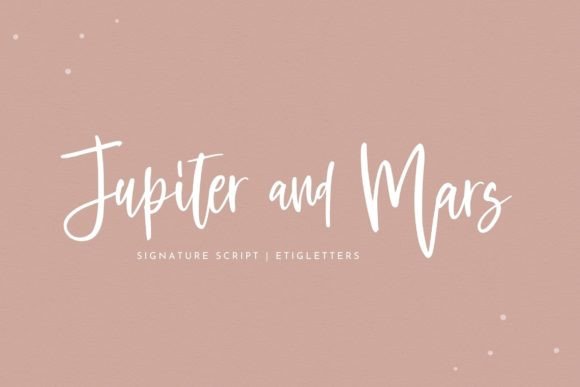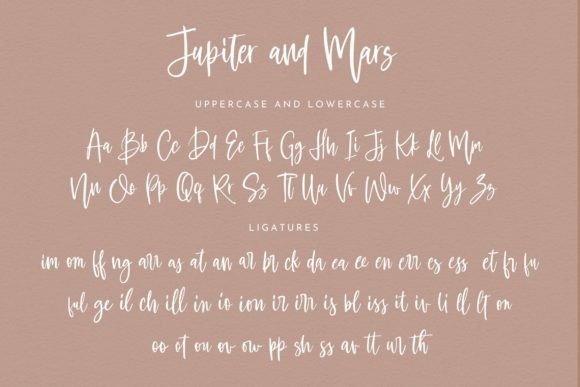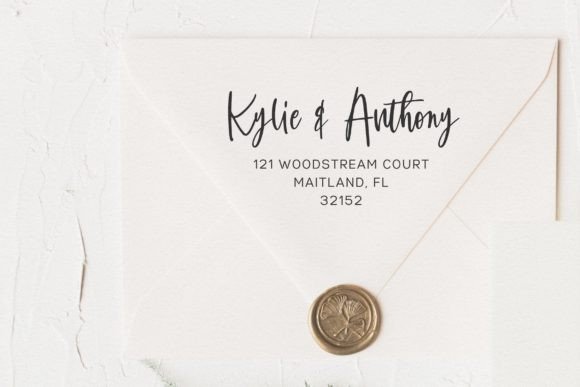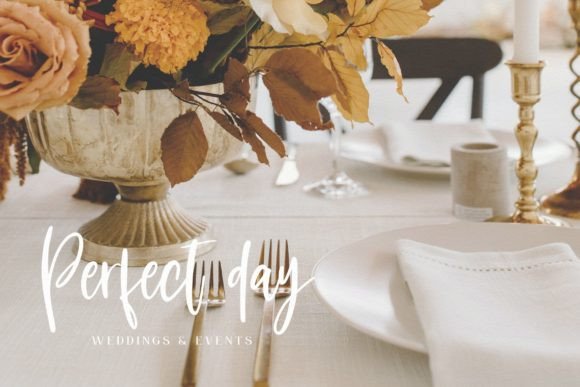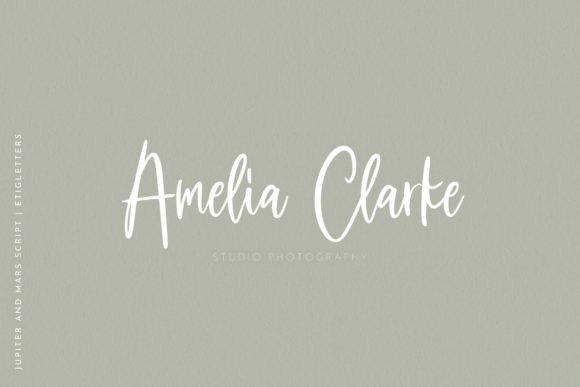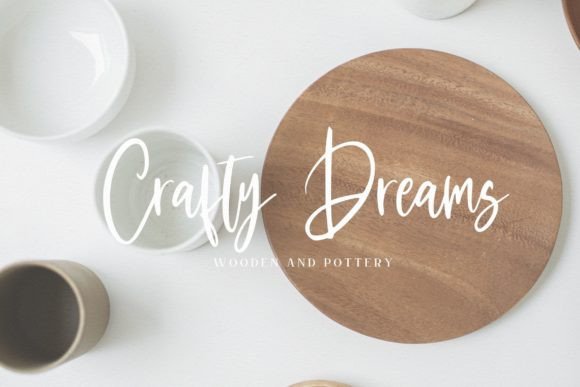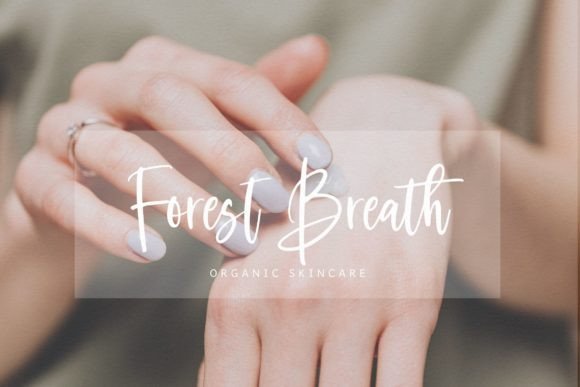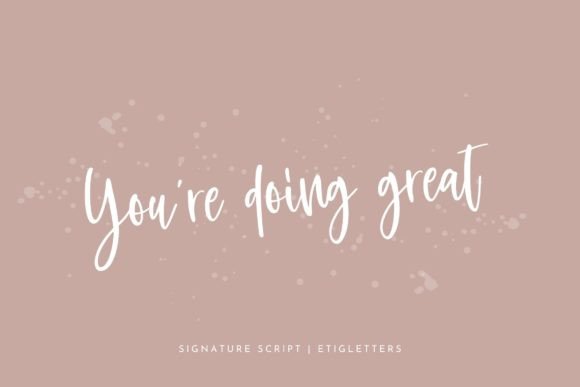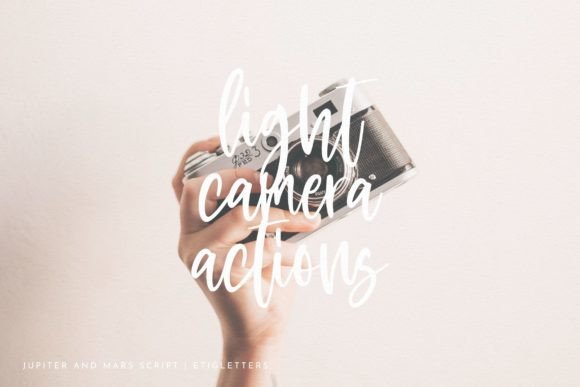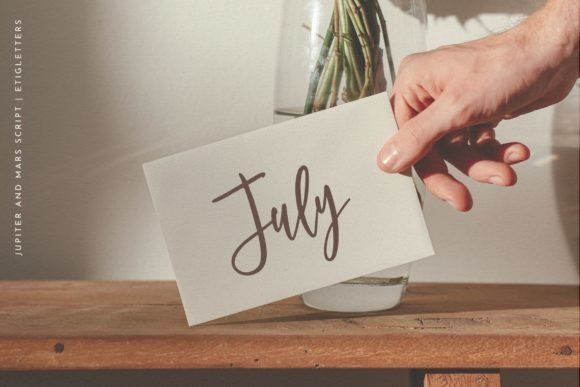
Jupiter and Mars Font
About Jupiter and Mars Font
Meet Jupiter and Mars, a charming new handwritten font that captures a natural inky flow. This typeface is designed to add a touch of elegance and uniqueness to your projects. Whether you’re working on wedding invitations, greeting cards, logos, posters, or other creative endeavors, Jupiter and Mars brings a distinctive and charming quality to your designs.
The natural inky flow of this font gives it an organic and handcrafted feel, making it perfect for projects that require a personal touch. The characters are carefully crafted to create a harmonious and visually appealing flow, enhancing the overall aesthetic of your text.
One notable feature of Jupiter and Mars is its PUA encoding, providing easy access to all the glyphs and swashes. This feature allows for enhanced creative freedom, letting you explore various characters and stylistic elements effortlessly.